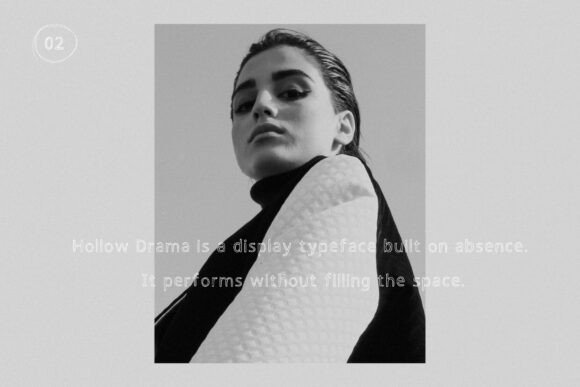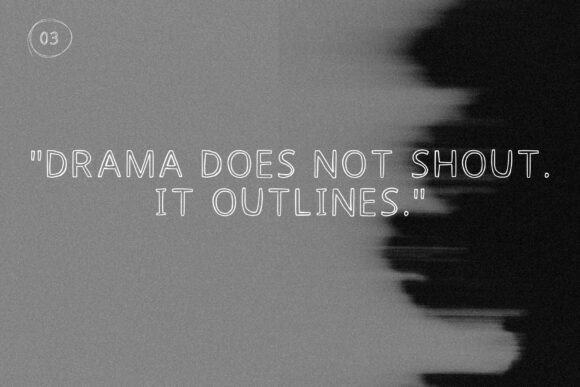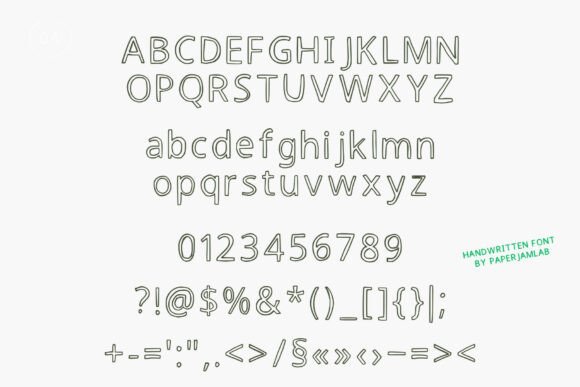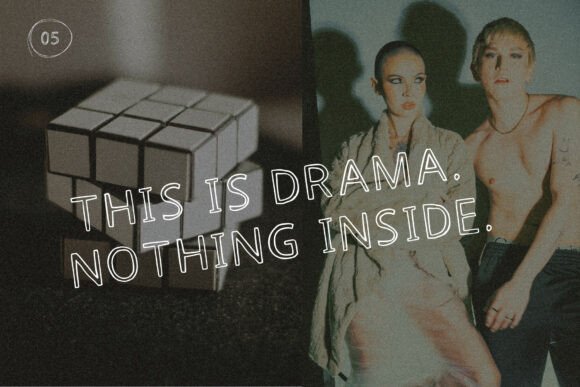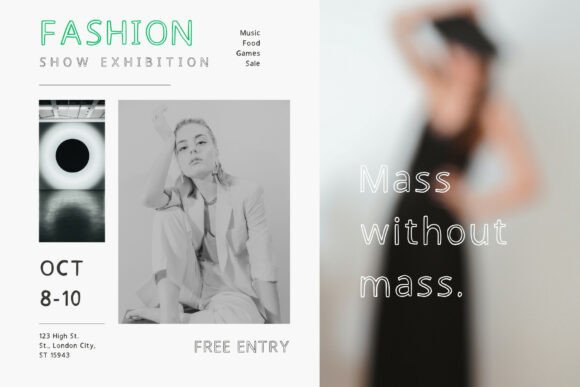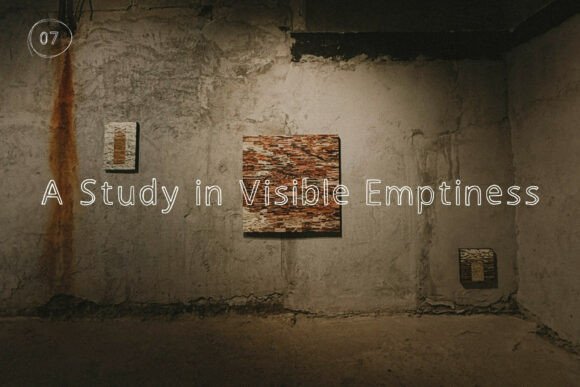
Introduction to Hollow Drama Font
Hollow Drama is more than just a typeface; it is a manifestation of minimalism and conceptual design.
Built on a delicate monoline structure, this handwritten outline font embodies the idea of “weight without ink ” It is designed for creators who value restraint, theatricality, and a modern, high-fashion aesthetic.
Key Features of Hollow Drama Font
Why Choose Hollow Drama Font?